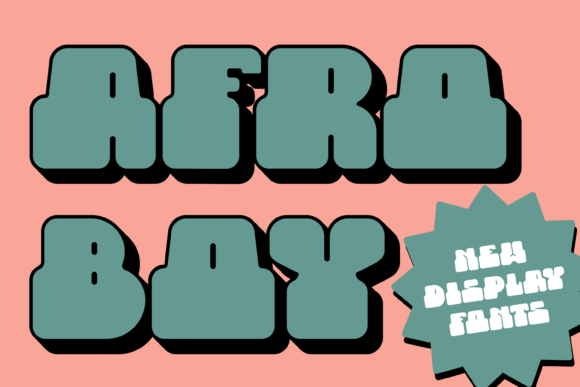
The Afroboy Font: A Game-Changer for Your Design Projects
With its unique blend of simplicity and modernity, Afroboy quickly became the perfect solution for my project. But what makes this font so special? In this article, I’ll take you through my experience with Afroboy, its features, and how to make the most of it in your designs.
An Honest Review of Afroboy Font
What I Love About Afroboy
- ✨ Simple yet modern look: Afroboy’s clean lines and rounded edges give it a fresh and youthful vibe that’s perfect for brands looking to appeal to a younger audience.
- ✅ Highly versatile: This font is designed to work well in a variety of projects, from branding and logos to titles, headlines, and posters.
- 💡 Attention-grabbing: Afroboy’s unique shape and size make it perfect for display purposes, ensuring your designs stand out from the crowd.
While Afroboy is an excellent font, there are a few things to keep in mind: ⚠️
- 🤔 Limited use in body text: Due to its bold and display nature, Afroboy might not be the best choice for lengthy body text. It’s best used for headings and titles.
- ⚠️ May not work well in small sizes: Afroboy’s unique features might get lost when scaled down, so it’s essential to test it at different sizes to ensure it works for your project.
- Explore stylistic alternates and glyphs to add more variety to your text.
The Backstory of Afroboy Font
While the actual origins of Afroboy might be unclear, it’s easy to imagine a designer with a passion for modern typography creating this font. Perhaps they wanted to craft a font that would add a fresh, fun vibe to designs, making it perfect for brands looking to appeal to a younger audience.
Q: What type of projects is Afroboy best suited for?
Afroboy is ideal for branding, logos, titles, headlines, posters, and display purposes.
Q: Does Afroboy support OpenType features?
Yes, Afroboy supports OpenType features, allowing you to access additional glyphs and stylistic alternates.
Q: Can I use Afroboy in both digital and print projects?
Absolutely! Afroboy is versatile enough to work well in both digital and print projects.